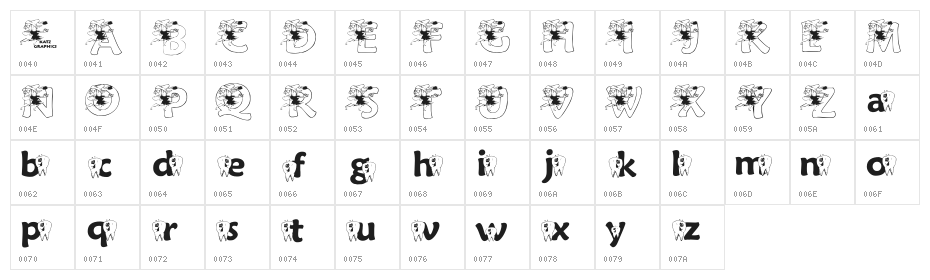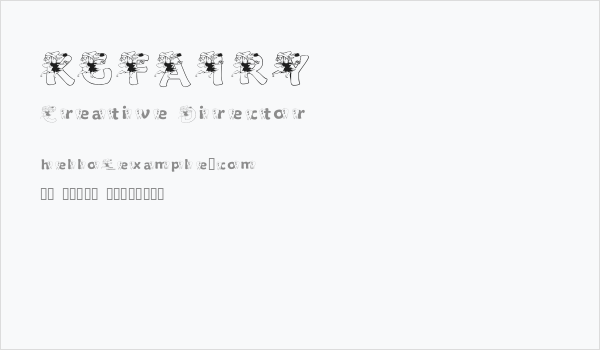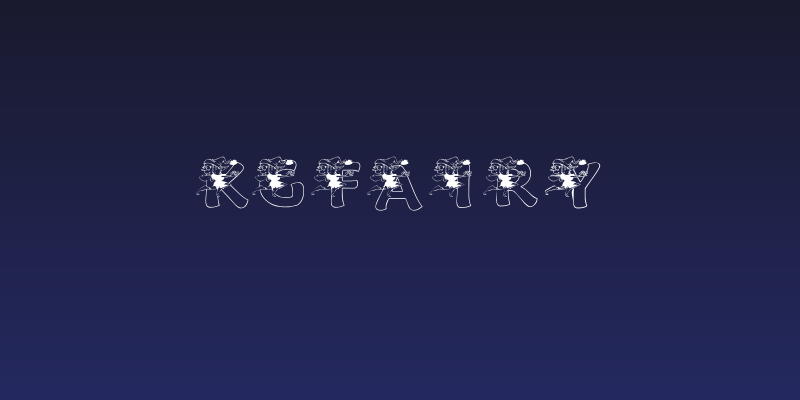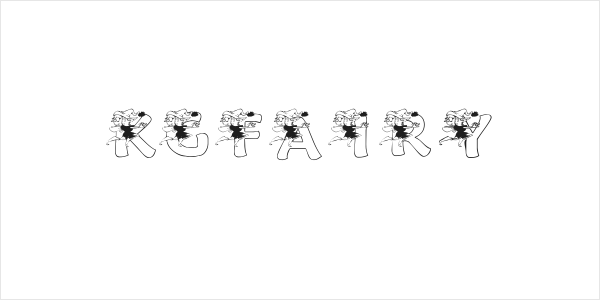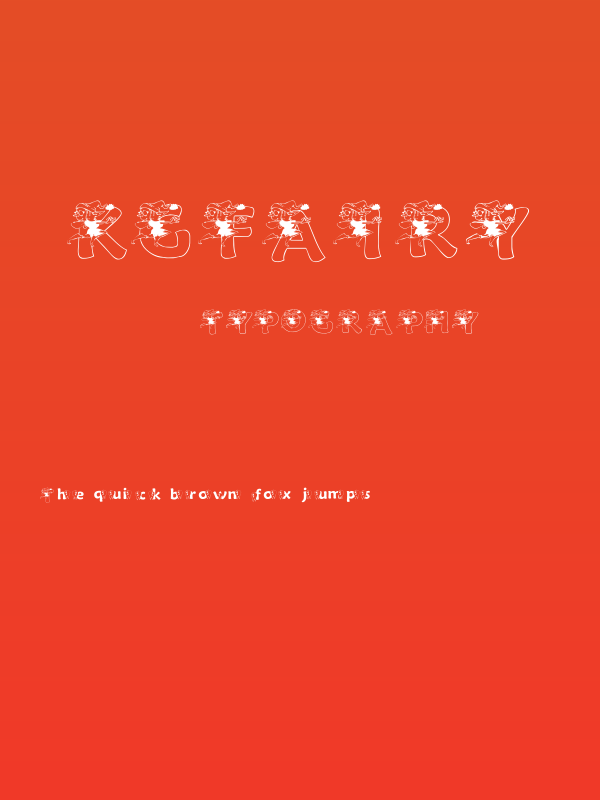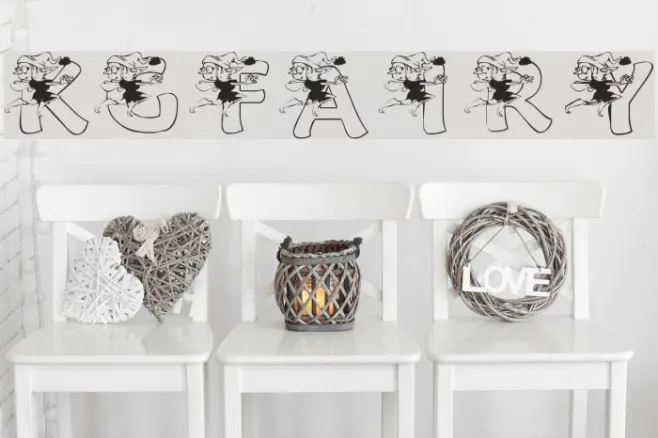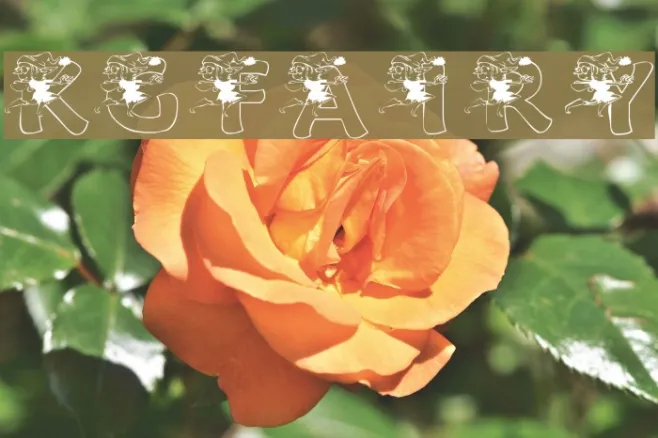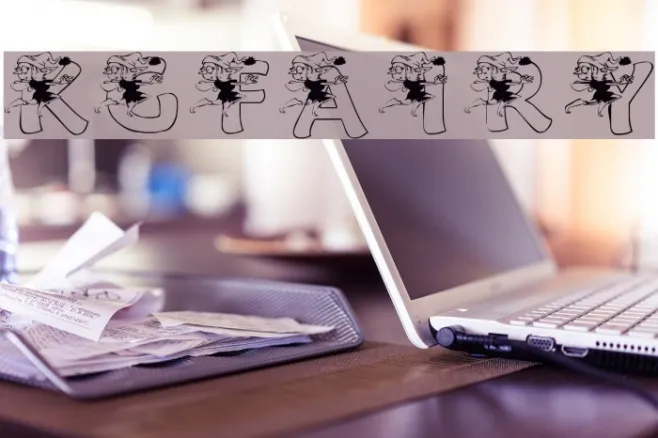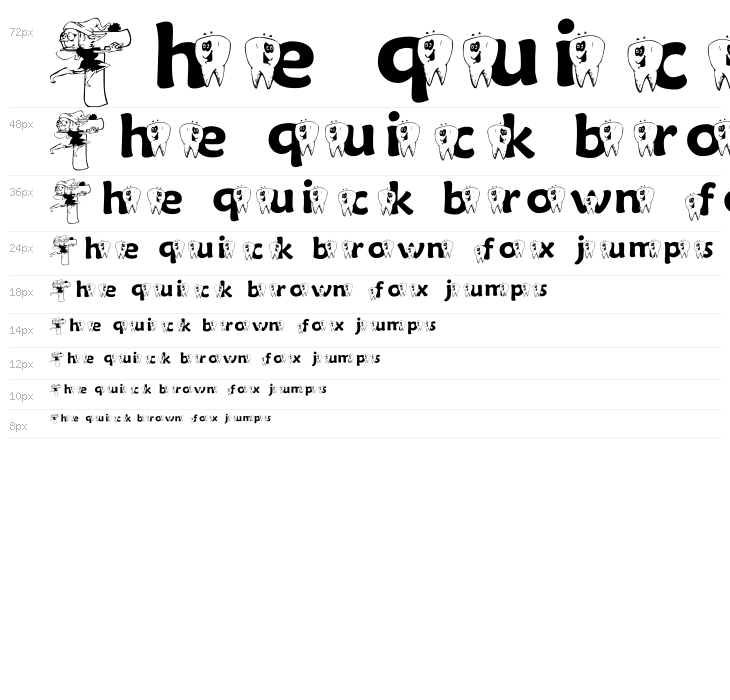
KGFAIRY Font
KGFAIRY Description
This whimsical and playful font features a unique design where each letter is accompanied by a small fairy character. The uppercase letters are outlined, giving them a light and airy feel, while the lowercase letters are filled, providing a bold contrast. The fairies add a decorative and enchanting element, making the font ideal for projects that require a touch of magic or fantasy. The overall style is both charming and imaginative, perfect for children's books, fantasy-themed invitations, or playful branding.
| Proposed Projects | Ideal for children's books, fantasy-themed invitations, playful branding, and magical event promotions. |